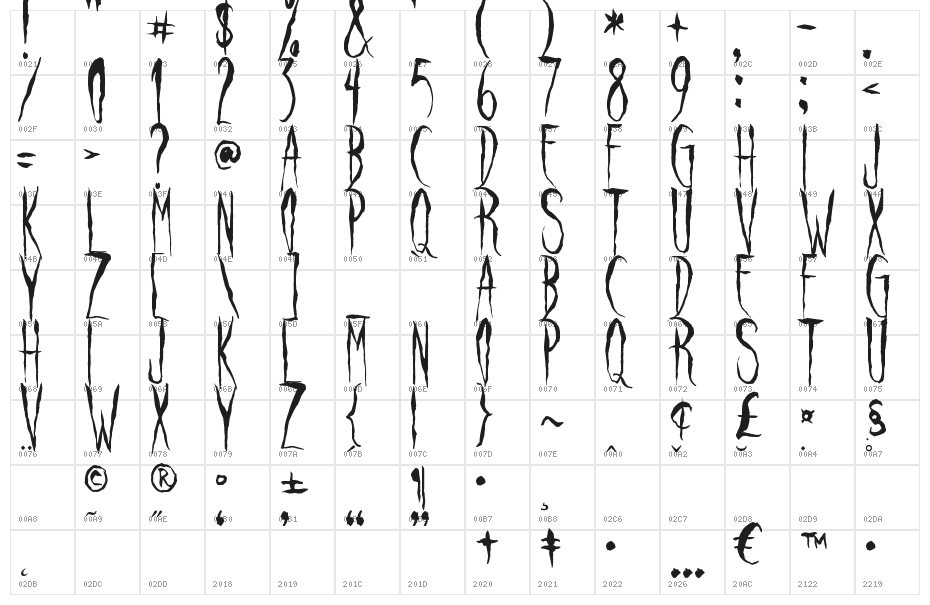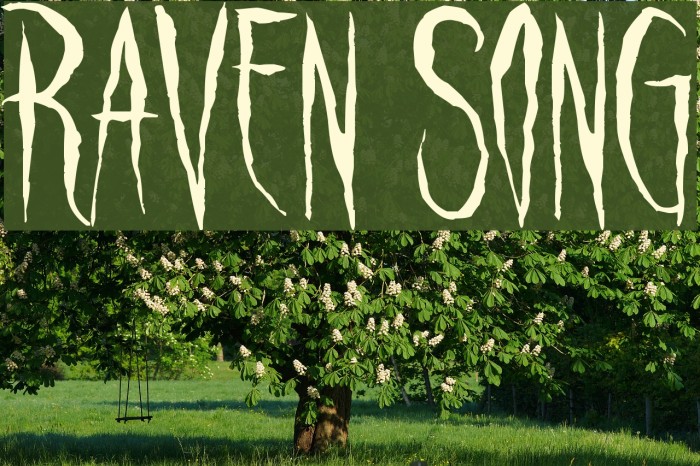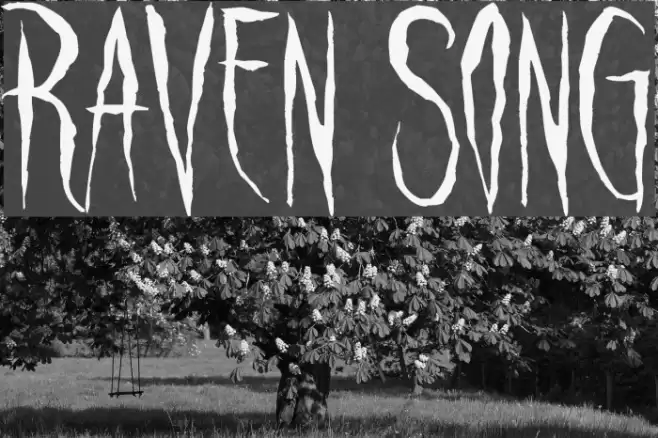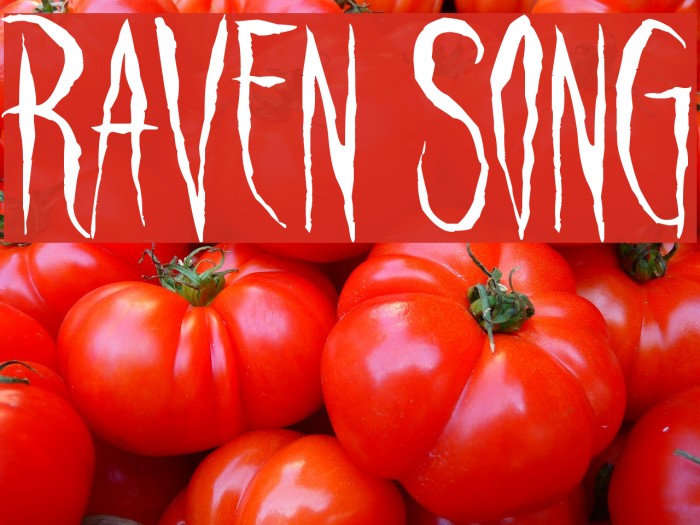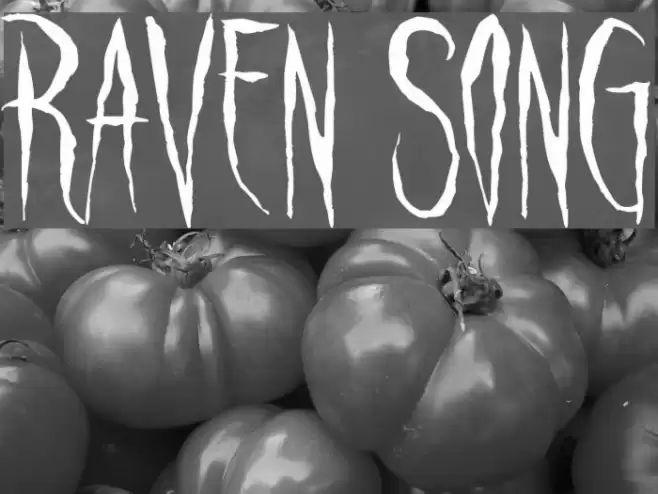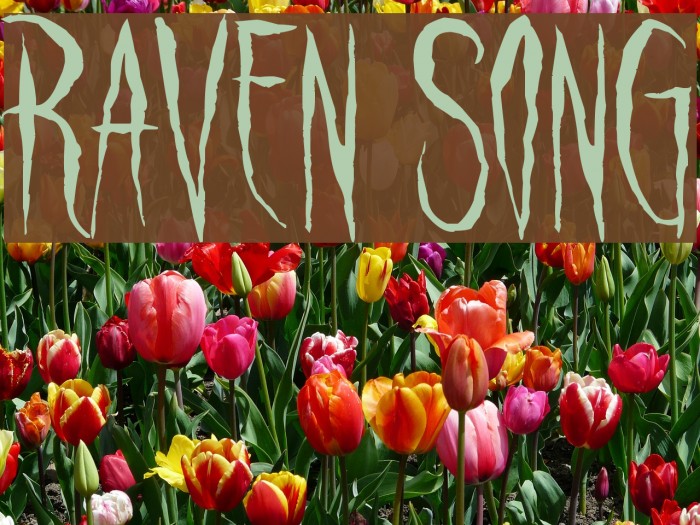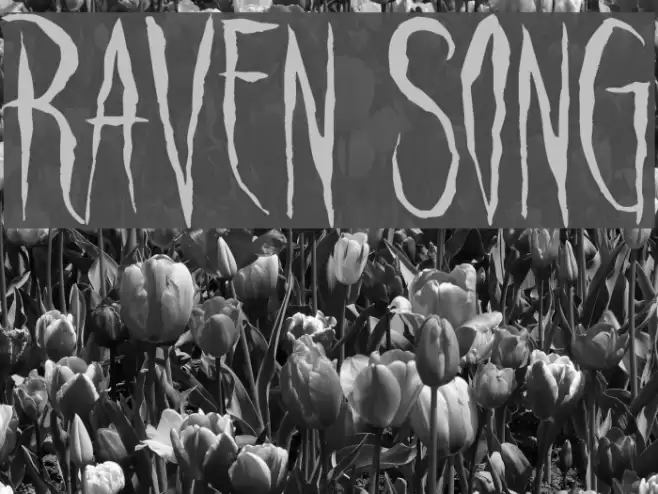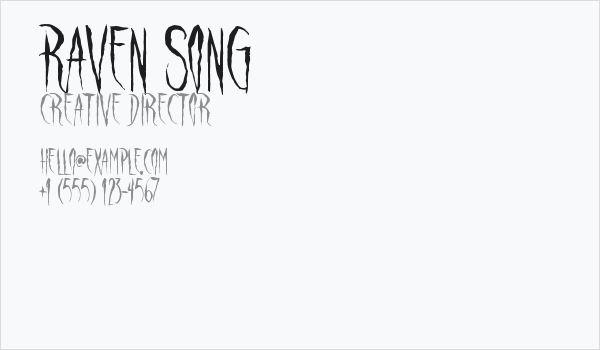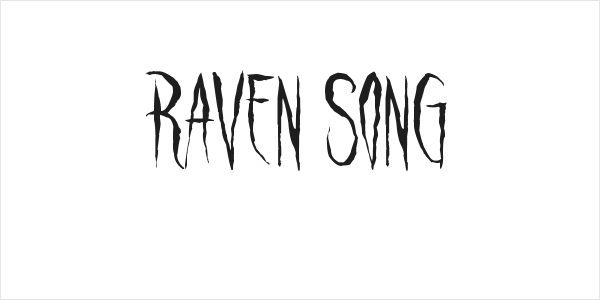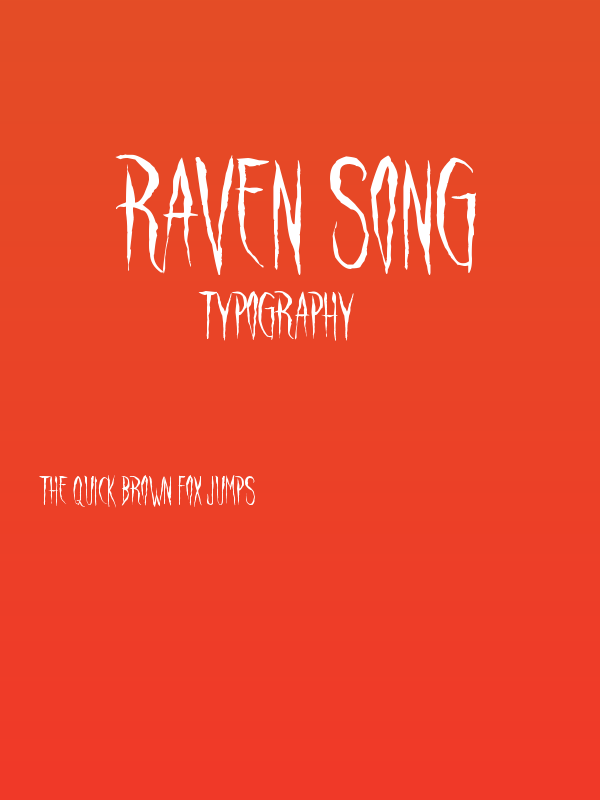
Raven Song Font
Raven Song Description
This font features a striking, jagged design that evokes a sense of mystery and intrigue. The characters are elongated and sharp, with uneven strokes that give them a hand-drawn, organic feel. The uppercase and lowercase letters maintain a consistent style, with a gothic influence that is both bold and expressive. The numerals and special characters follow the same aesthetic, ensuring a cohesive look across all text. This font is ideal for projects that require a dramatic and artistic touch, such as horror-themed designs, album covers, or fantasy book titles.
Overall StyleGothic, Artistic
Proposed ProjectsPerfect for horror-themed designs, album covers, fantasy book titles, and artistic posters.